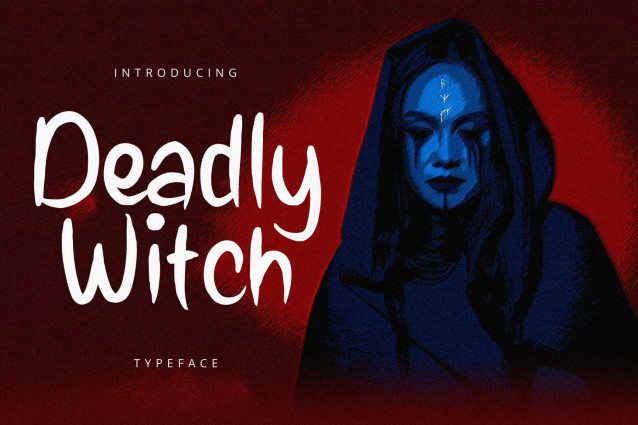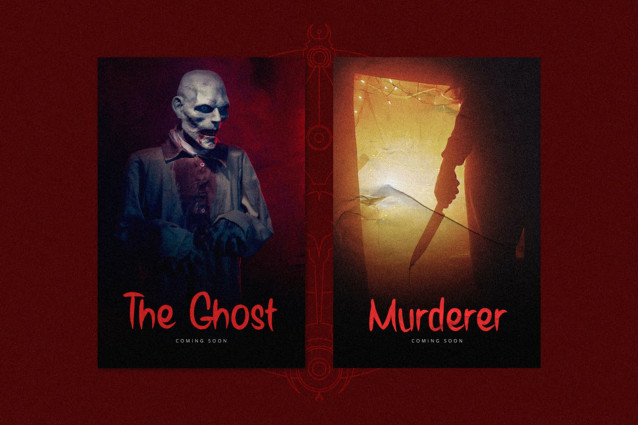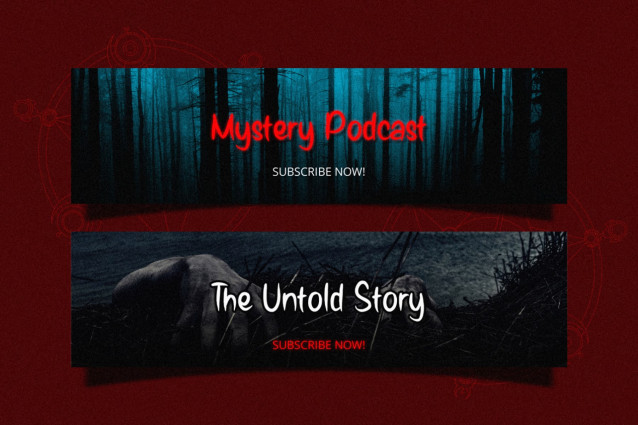
Deadly Witch Font
This is the latest Ghotic font from us, very suitable for use in your work presentations such as blog design, modern design, web design, invitation cards, and others. please download and enjoy!
• UPPERCASE & LOWERCASE